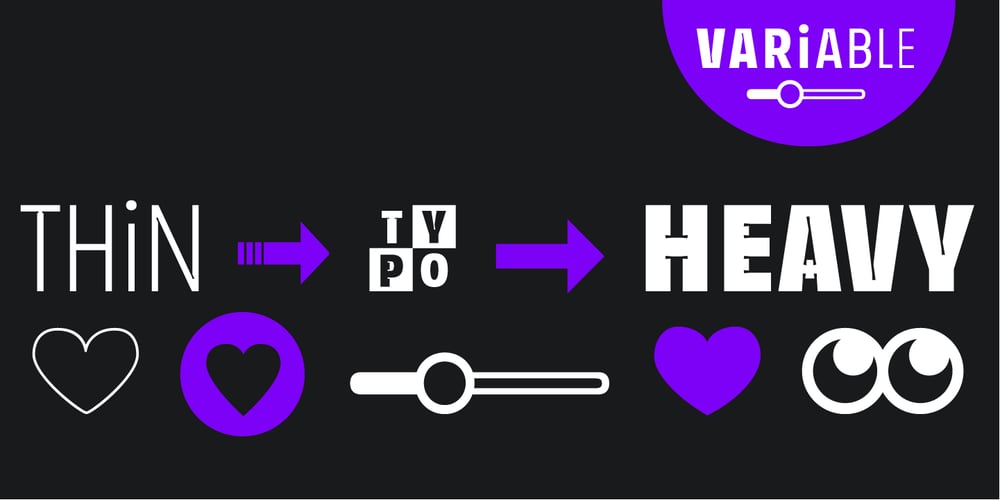
Ink Trap Sans Variable Font Family was designed by Manuel Viergutz and published by TypoGraphicDesign. Ink Trap Sans Variable contains 1 styles and family package options. The variable typeface Ink Trap Sans is designed from 2024–2025 for the font foundry Typo Graphic Design by the type designer Manuel Viergutz.9 font-styles (Thin, Extra Light, Light, Regular, Medium, SemiBold, Bold, Heavy, Ultra) with 539 glyphs (Adobe Latin 3) incl. decorative extras like icons, arrows, catch words, dingbats, emojis, symbols, geometric shapes (type the word #LOVE for ❤ as OpenType-Feature dlig) and stylistic alternates (2 stylistic sets).For use in logos, packaging for drinks & food, magazines, posters, advertisement plus as webfont for decorative headlines. The font works best for display size. Font Specifications■ Font Name: Ink Trap Sans■ Font Styles: 9 font-styles (Thin, Extra Light, Light, Regular, Medium, SemiBold, Bold, Heavy, Ultra)+ DEMO (with reduced glyph-set)■ Font Category: Variable Sans Serif for headline size■ Font Format: _OTF (Mac + Win, for Print) + _WOFF (for Web)■ Glyph Set: 539 glyphs (Adobe Latin 3 incl. decorative extras)■ Language Support (91 languages): Afrikaans Albanian Asu Basque Bemba Bena Breton Catalan Chiga Colognian Cornish Croatian Czech Danish Dutch Embu English Esperanto Estonian Faroese Filipino Finnish French Friulian Galician German Gusii Hungarian Icelandic Indonesian Irish Italian Kabuverdianu Kalenjin Kamba Kikuyu Kinyarwanda Latvian Lithuanian Lower Sorbian Luo Luxembourgish Luyia Machame Makhuwa-Meetto Makonde Malagasy Maltese Manx Meru Morisyen North Ndebele Norwegian Bokmål Norwegian Nynorsk Nyankole Oromo Polish Portuguese Quechua Romanian Romansh Rombo Rundi Rwa Samburu Sango Sangu Scottish Gaelic Sena Serbian Shambala Shona Slovak Slovenian Soga Somali Spanish Swahili Swedish Swiss German Taita Teso Turkish Upper Sorbian Uzbek (Latin) Volapük Vunjo Walser Welsh Western Frisian Zulu■ OpenType features (21): aalt ccmp dligdnom frac liga locl numr ordn pnum ss01 ss02 ss03 ss04 ss05 ss06 sups tnum kern mark mkmk■ Specials: Capital Letter Sharp S (German Versal Eszett U+1E9E) ẞ, Catchwords like FOR, Emojis like Smiley ☺, Symbols like Heart ♥︎, Variable Sans Serif Font■ Design Date: 2024–2025■ Type Designer: Manuel Viergutz